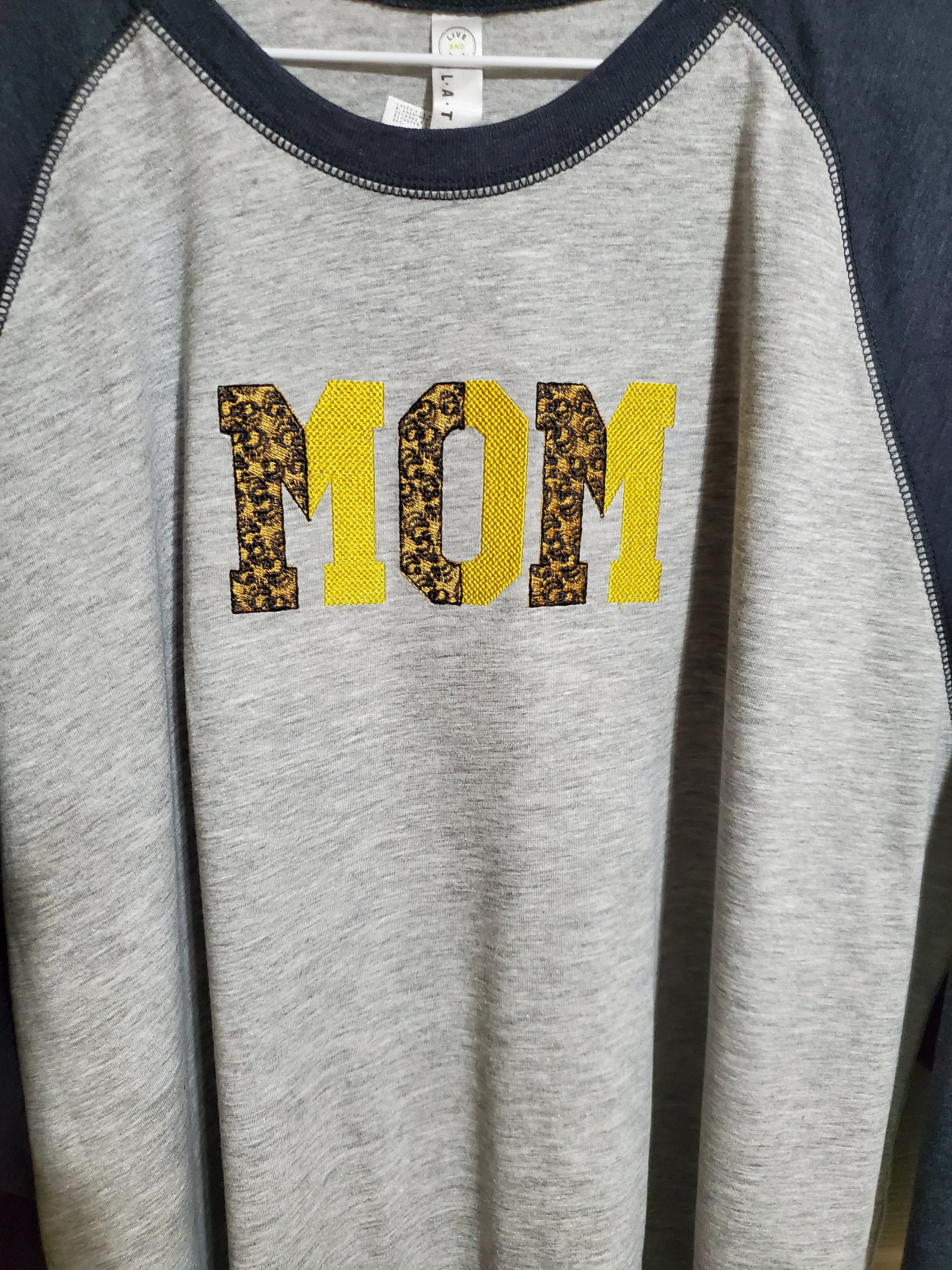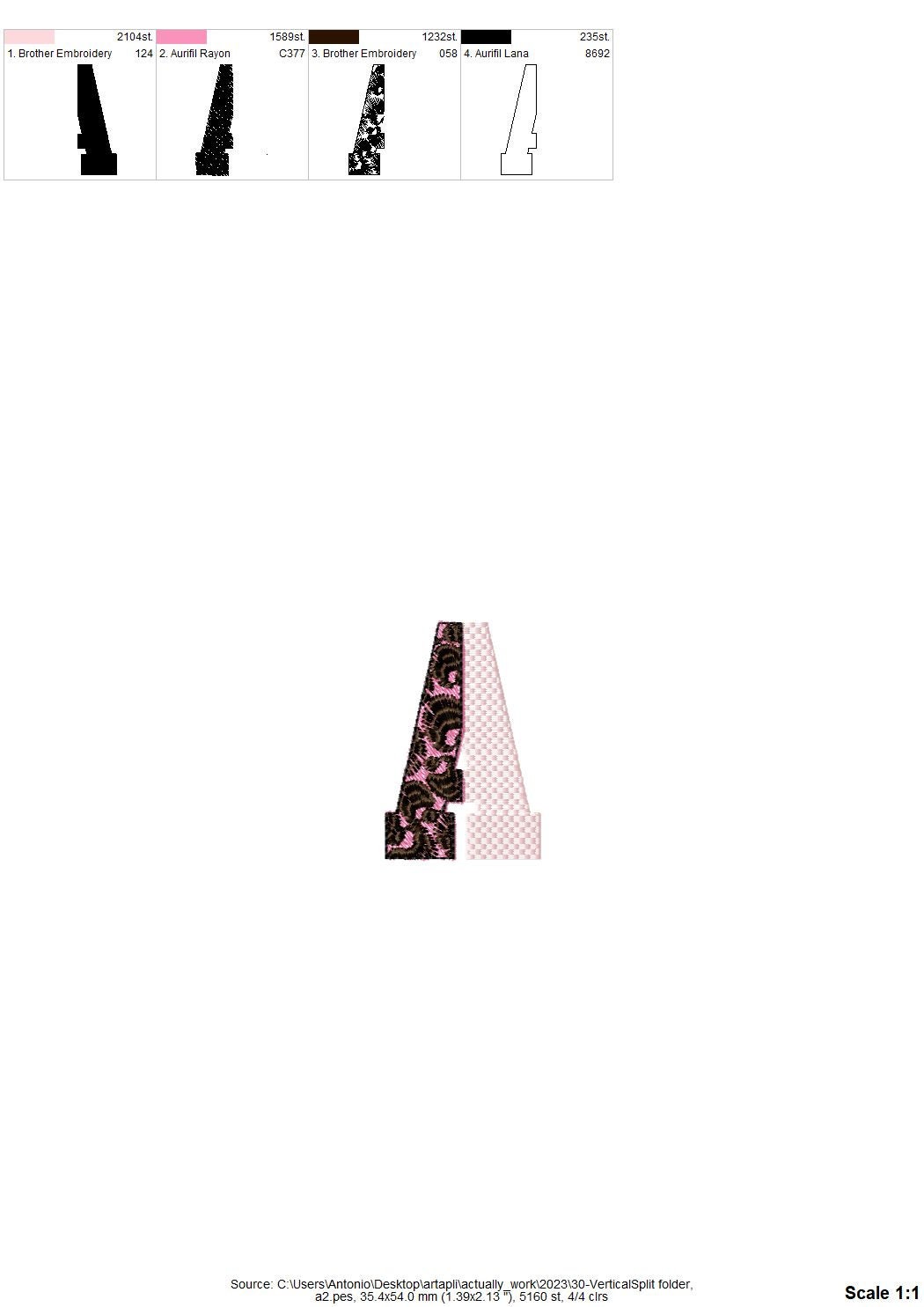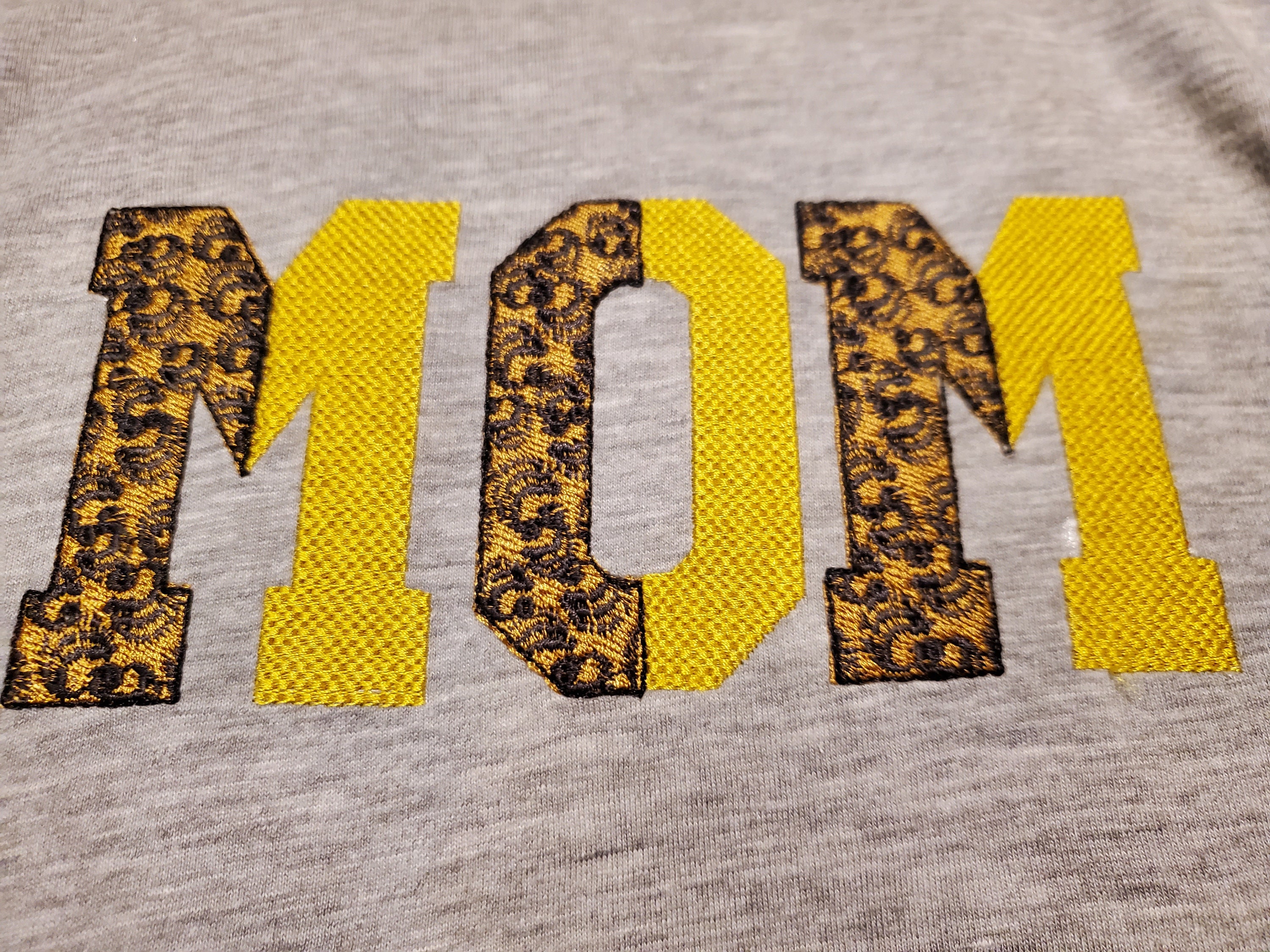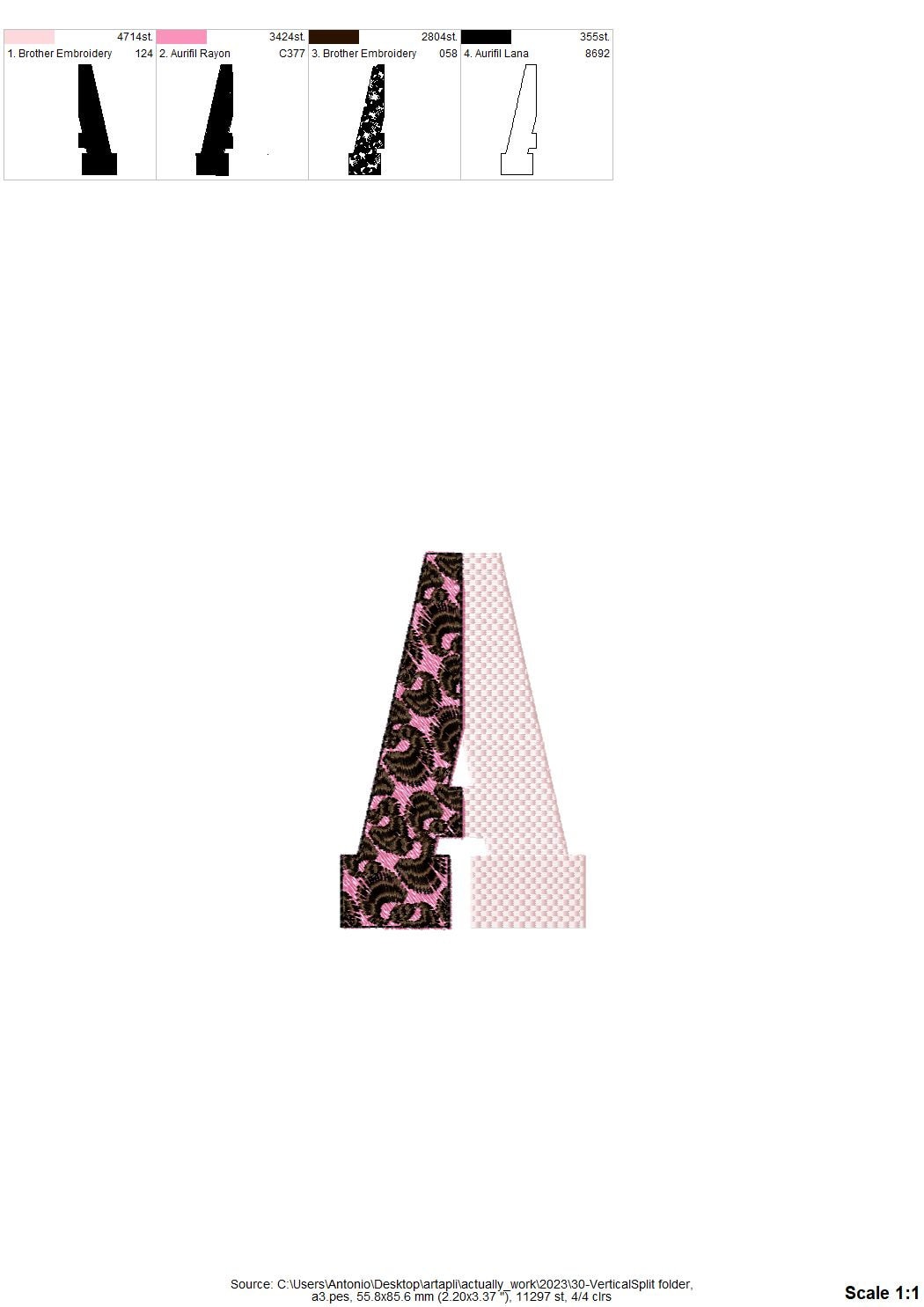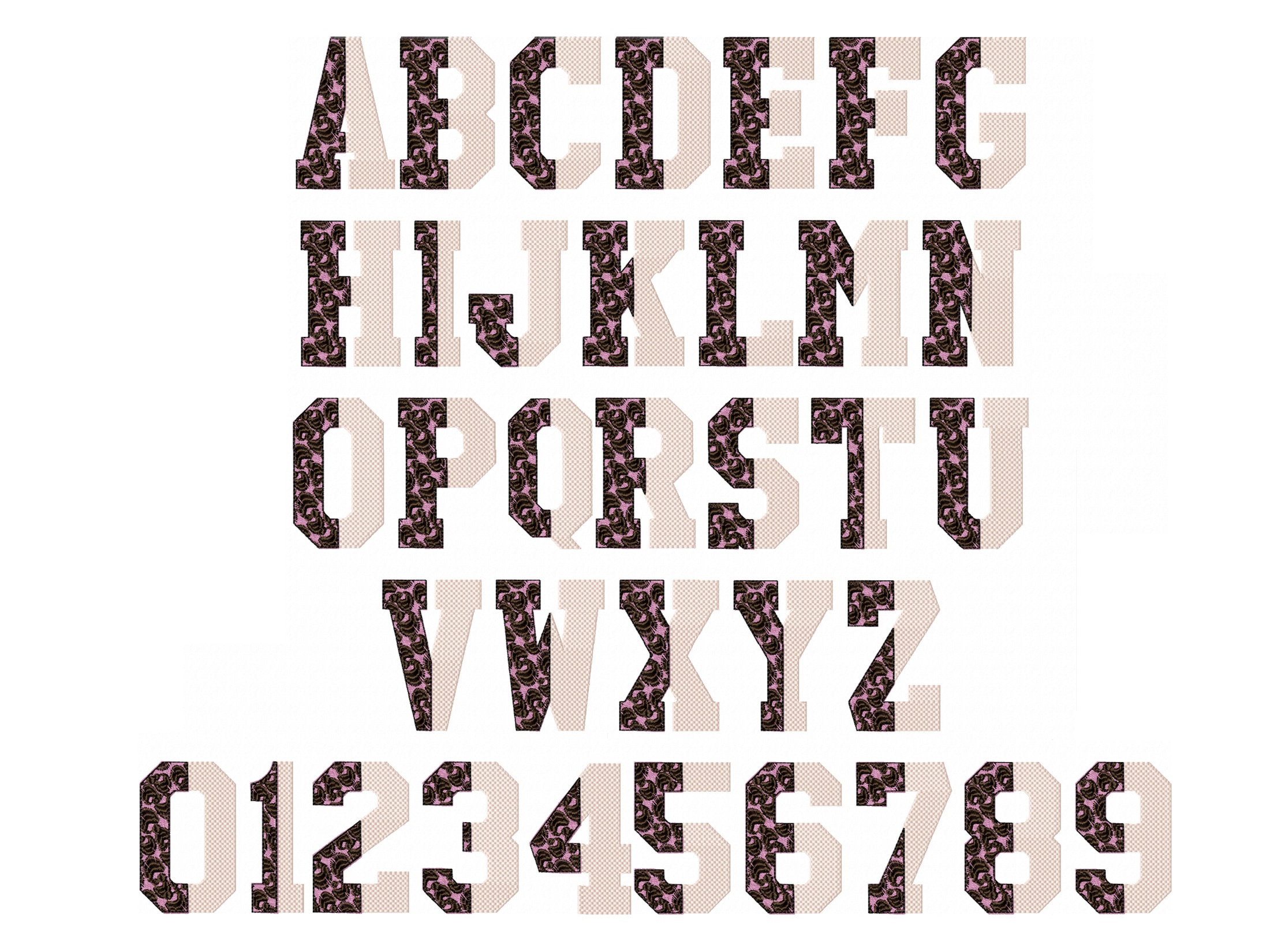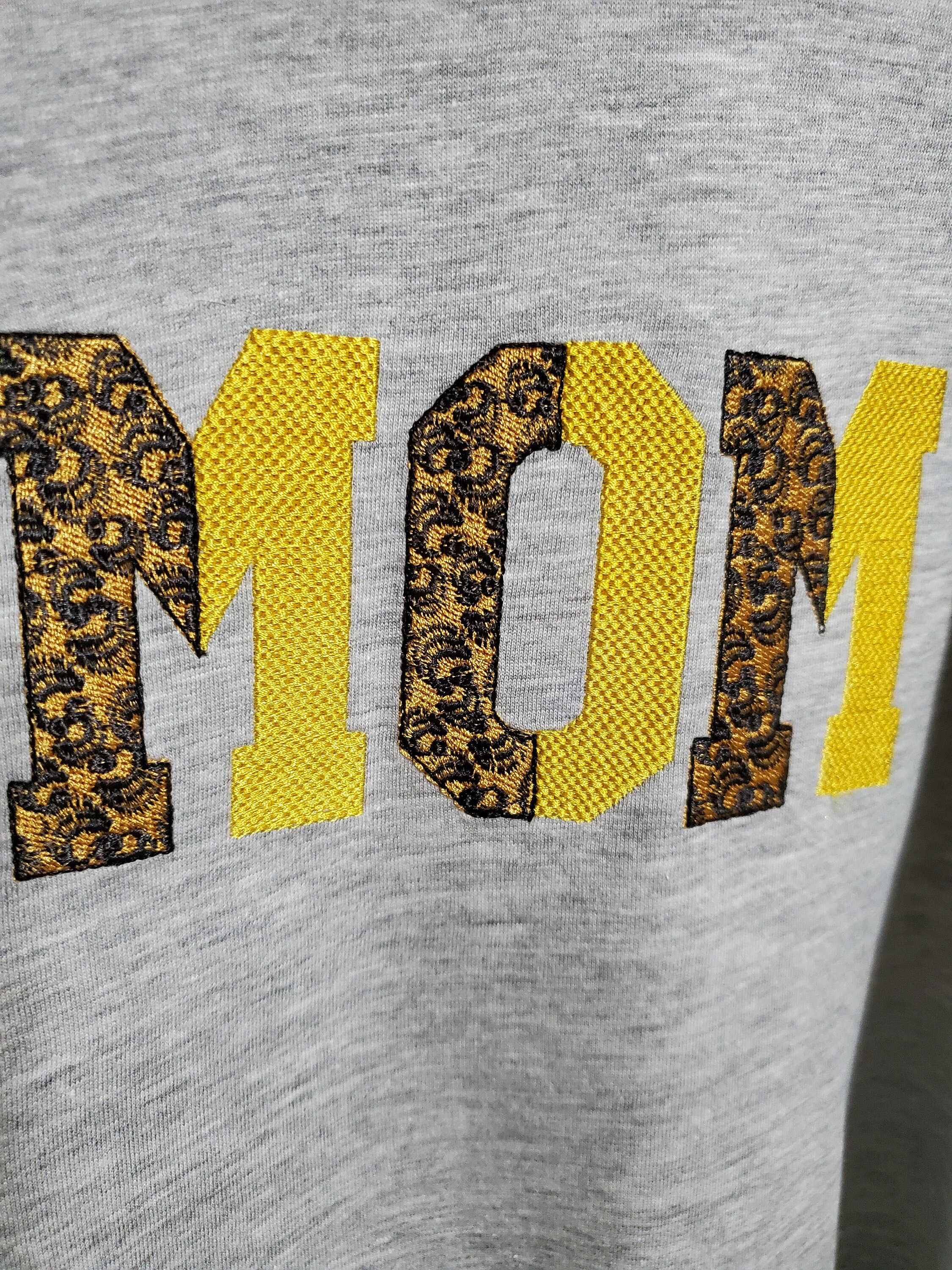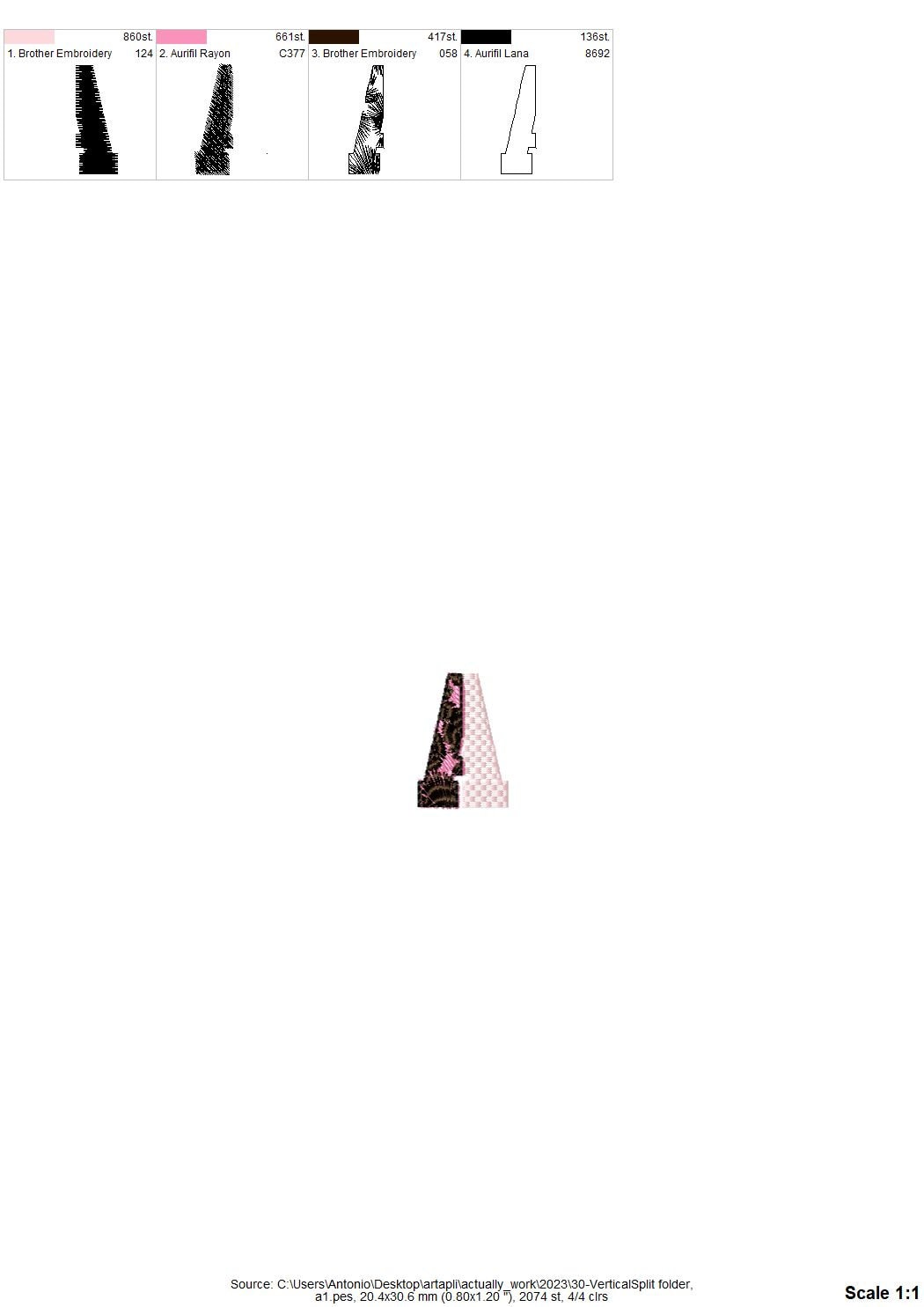
Vertical Split Font leopard spots and waffle fill stitch alphabet monogram machine embroidery designs letters numbers 1, 2, 3, 3.5 inches BX included
Entire alphabet uppercase and numbers.
Fill stitch design. Leopard spots are part of the embroidery.